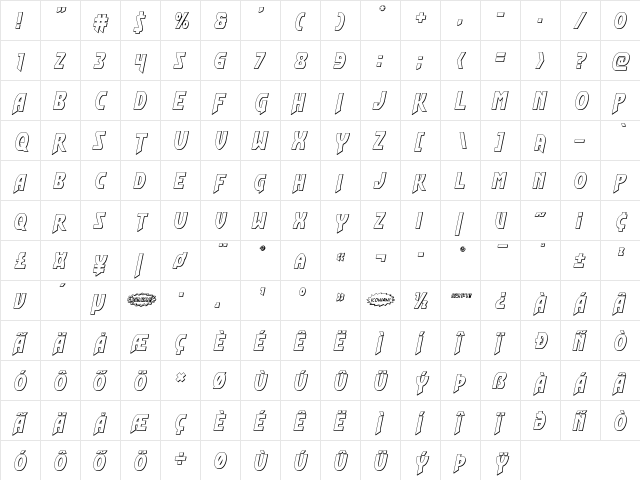
Flash Rogers Outline Outline
Design Context for Flash Rogers Outline Typeface
Flash Rogers Outline is built around its visual character rather than neutral utility — its distinctive forms are designed to make an impression at display sizes.
Font Pairing: Pair with a clean neutral sans-serif for body copy to let Flash Rogers Outline's character lead without overwhelming the composition.
Pro Tip: Use Flash Rogers Outline exclusively at display sizes — it was designed to be seen, not read at length. Let a neutral companion handle body copy.